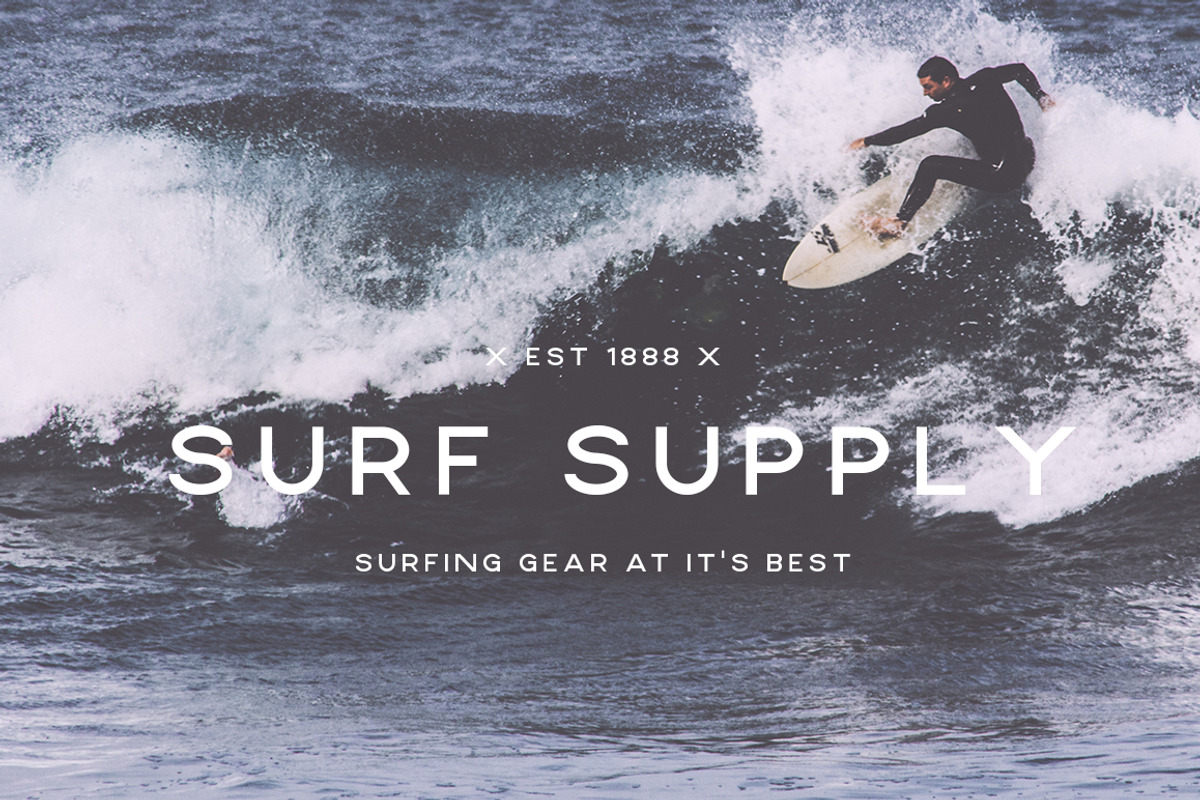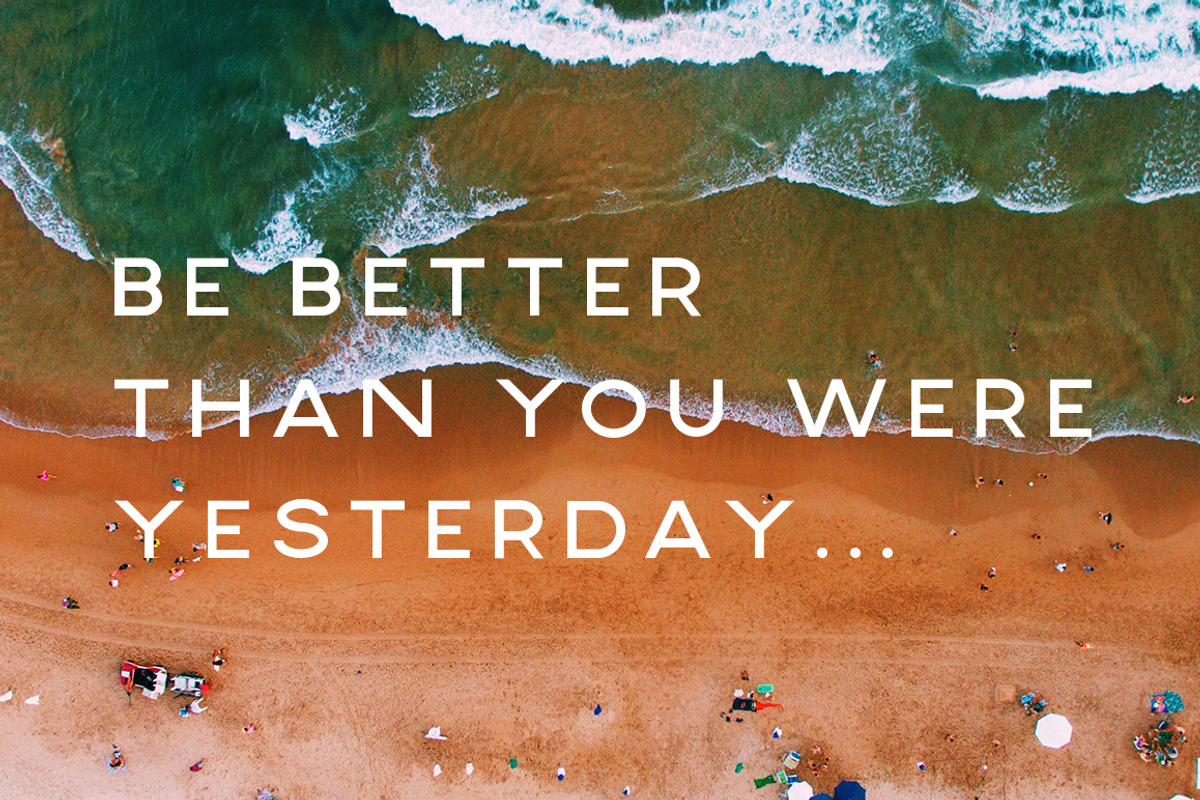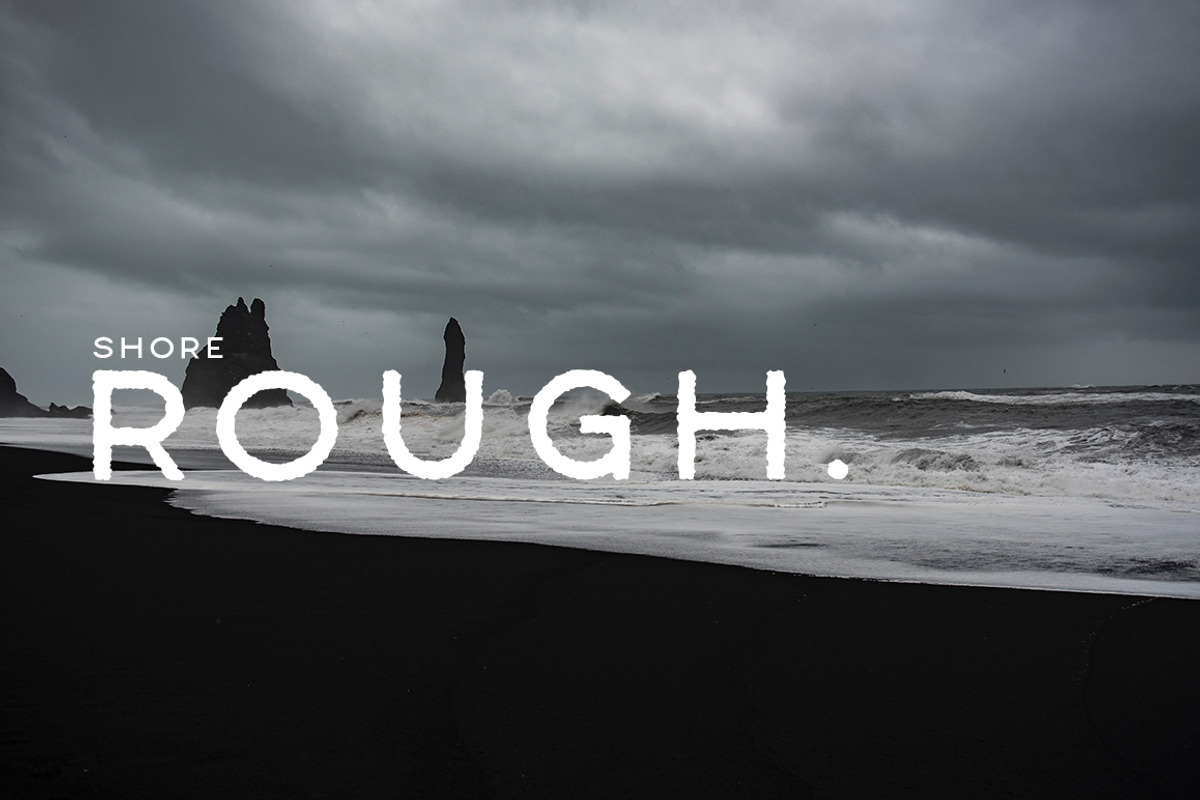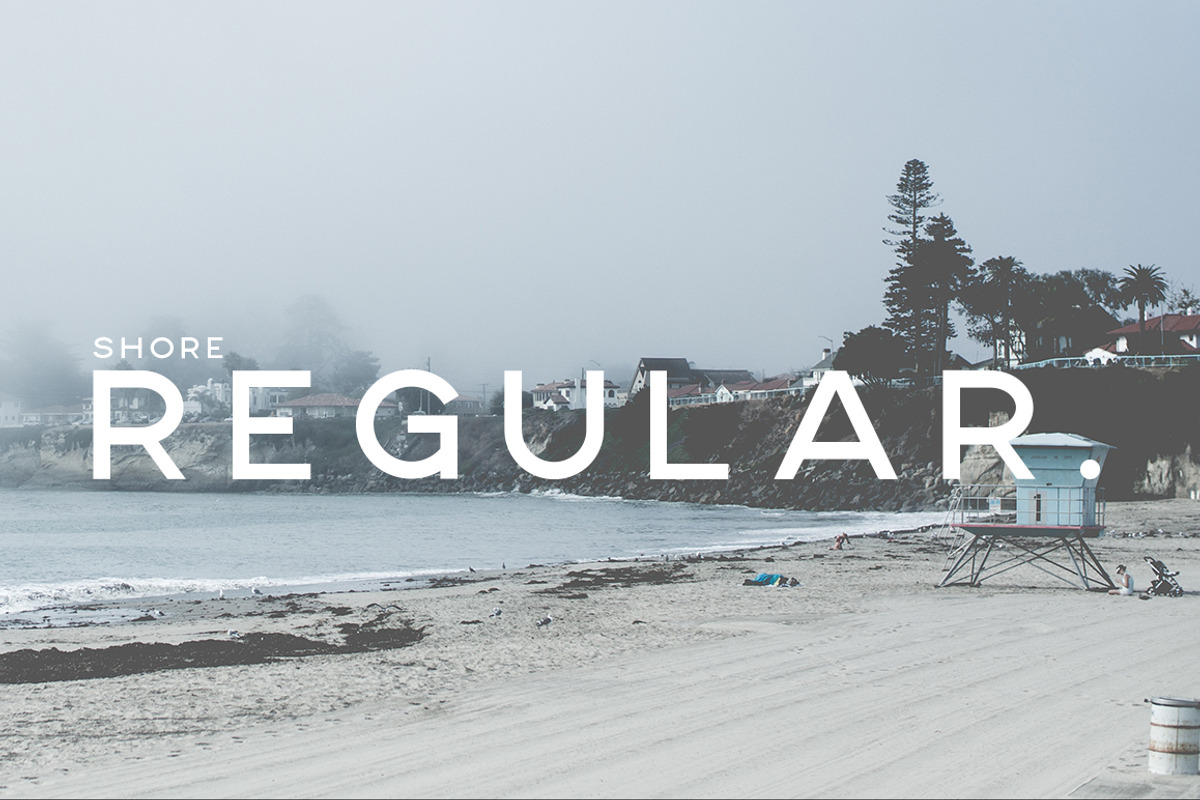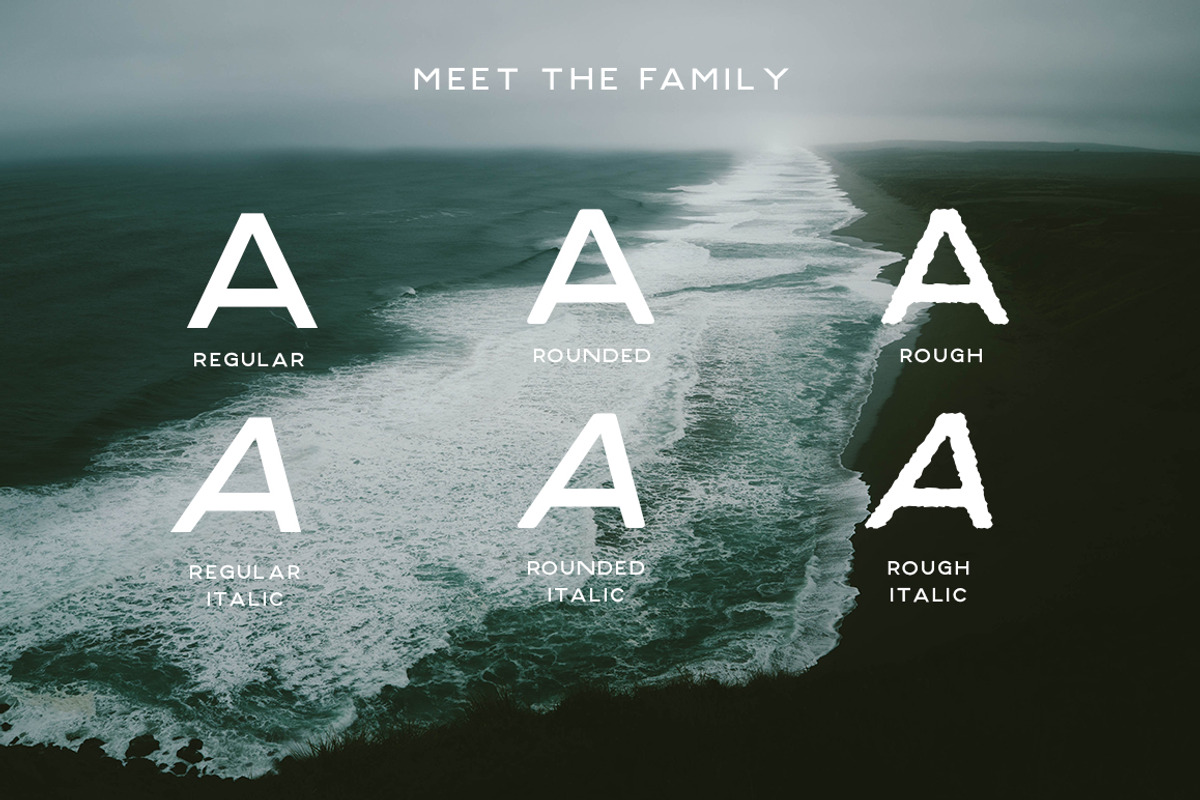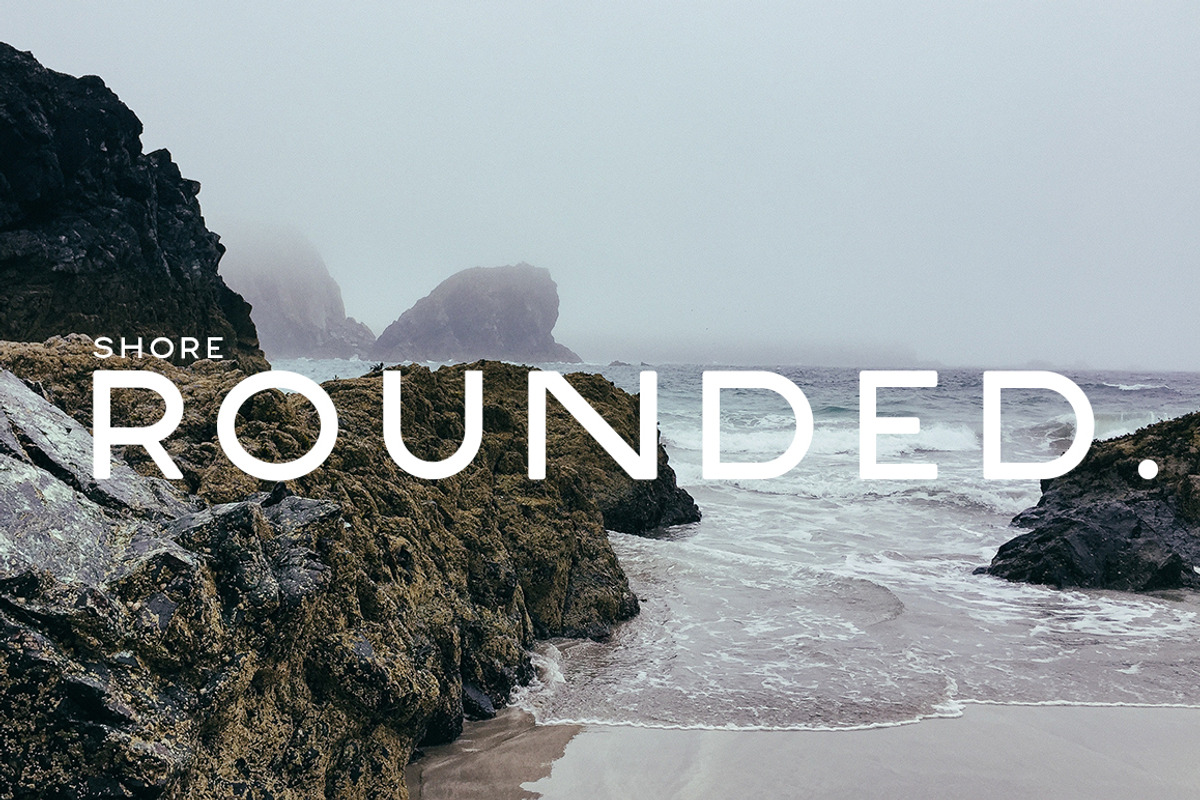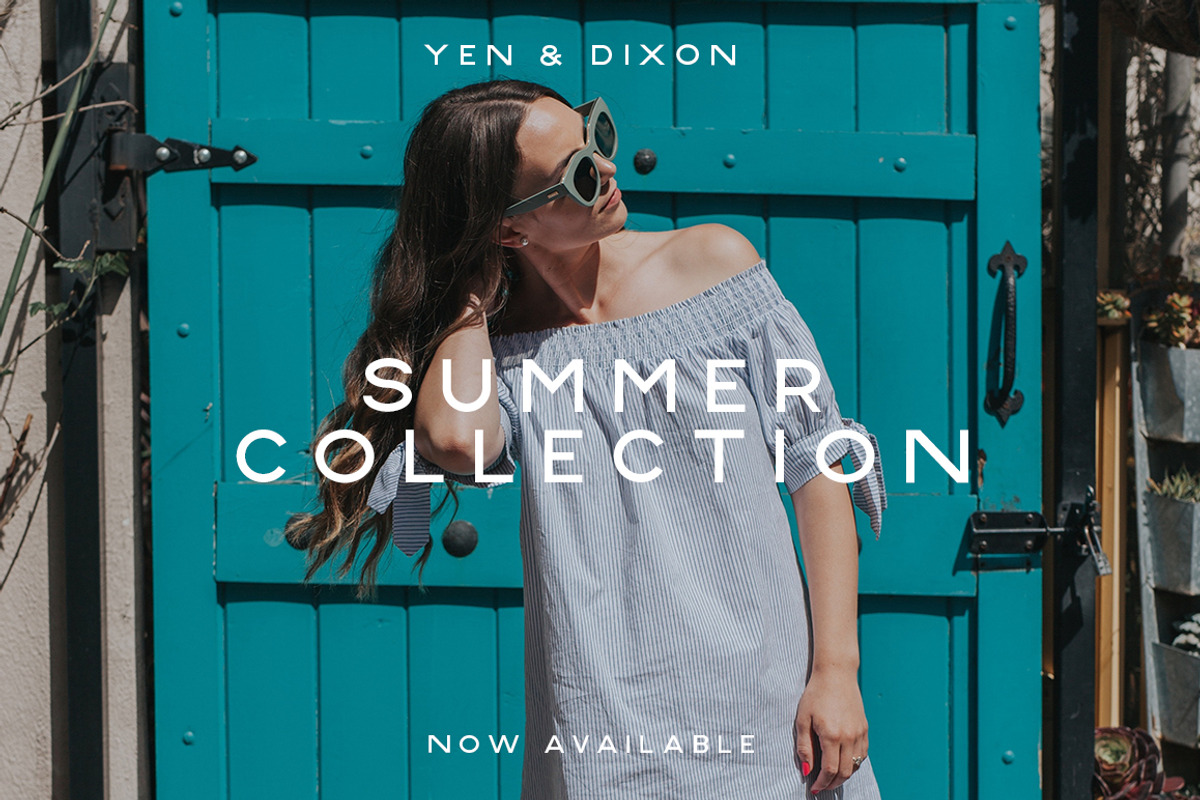
Shore | A Carefree Font Family
Create Modern, Fresh and Youthful Designs with Shore!
Shore is a carefree sans-serif font family, that has been designed to create fun yet sleek designs and branding. It works well for pretty much anything, due to its clean and contemporary lines and rounding. it works especially well for industries such as apparel, perfumes & colognes, food & drink, beauty, travel and homeware.
Shore comes with the original font, plus the italic, rough and rounded versions, so you can use it for your entire project without needing anything else. Alternatively it pairs great with script fonts or thin sans-serifs.
Optimized kerning for aesthetic and highly readable texts